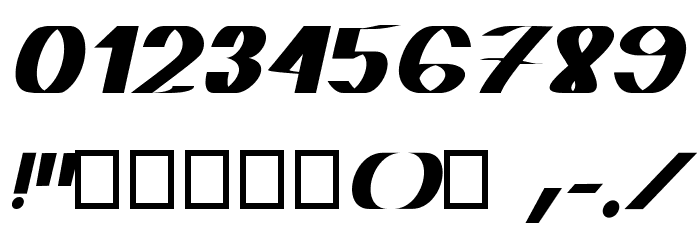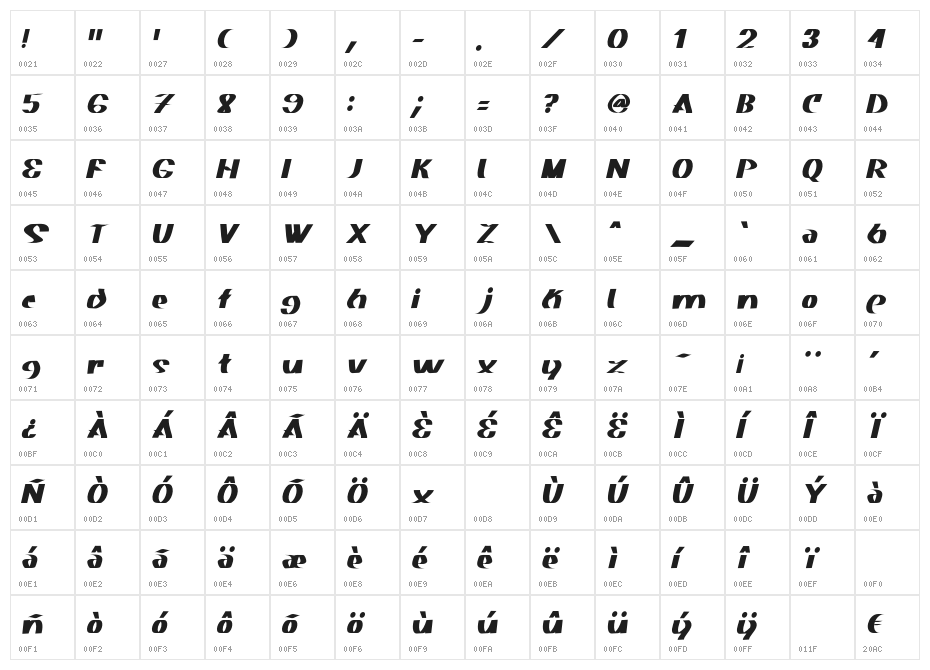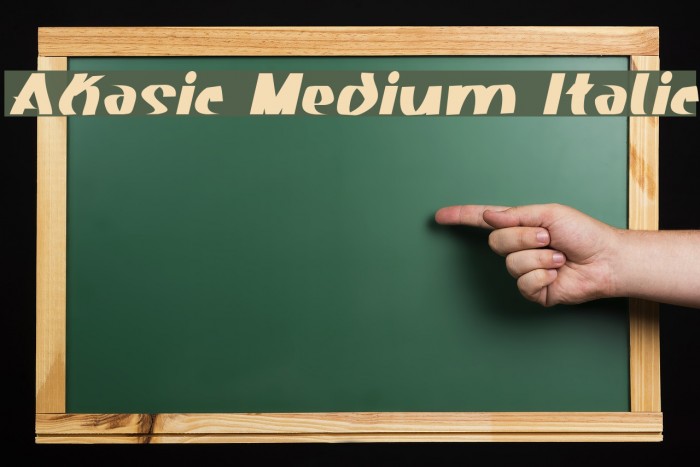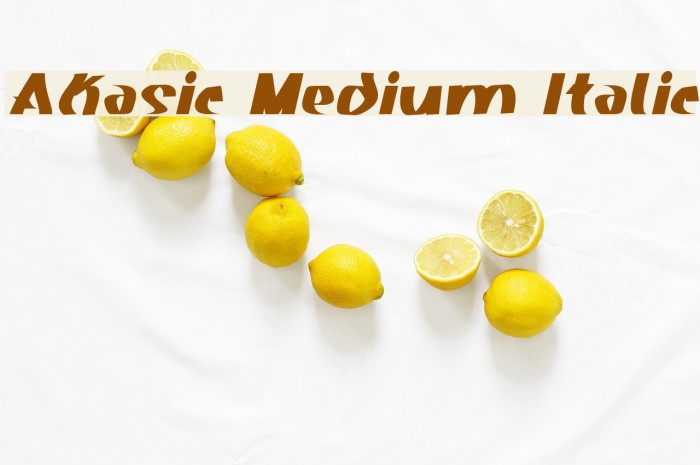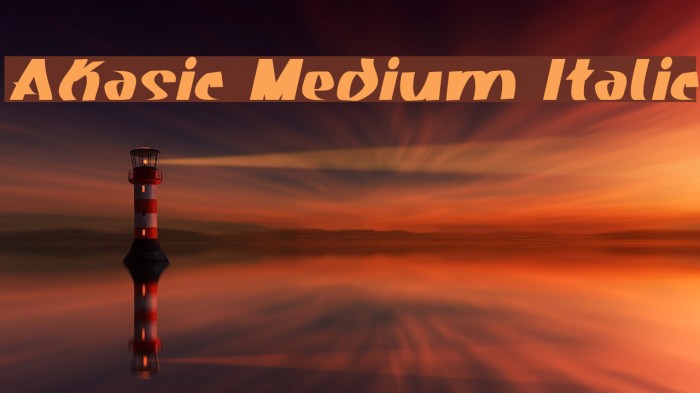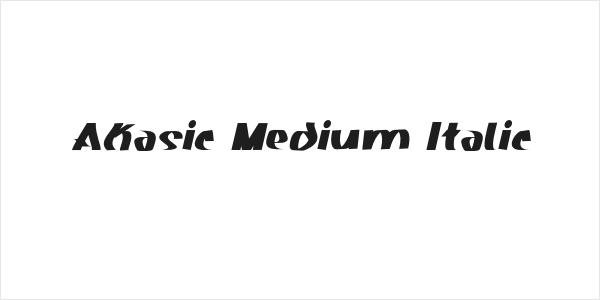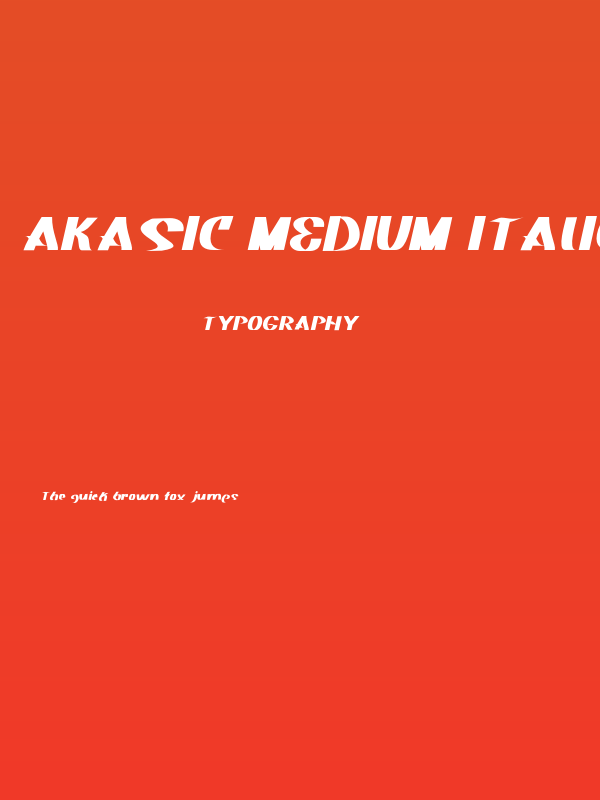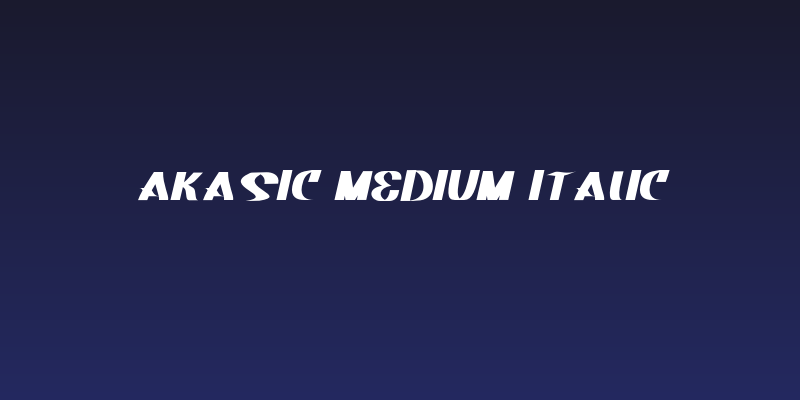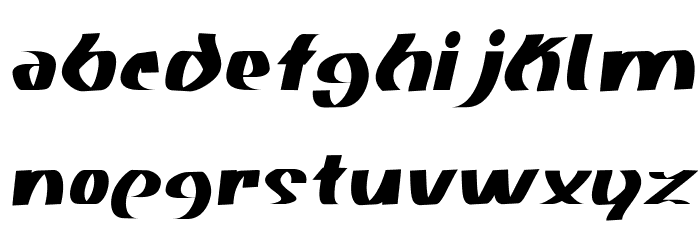
Akasic Medium Italic Font
Akasic Medium Italic Description
This font features a dynamic and bold italic style with a modern twist. The characters are designed with sharp, angular cuts and a forward-leaning posture, giving a sense of motion and energy. The uppercase letters are particularly striking, with unique shapes that make them stand out. The lowercase letters maintain the same energetic style, ensuring consistency throughout the typeface. Numbers and special characters are crafted with the same attention to detail, making them suitable for a variety of uses. The overall design is both eye-catching and versatile, perfect for projects that require a bold statement.